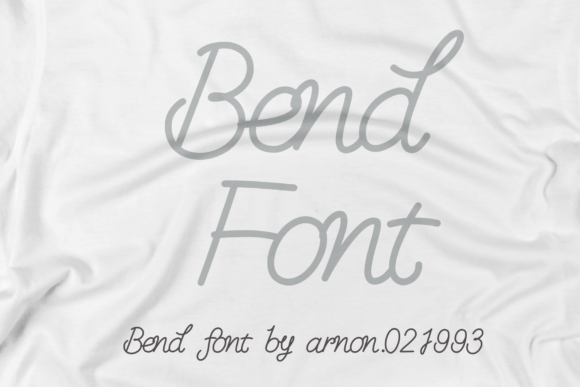
The Designer’s Delight: Falling in Love with Bend Font
I’ll never forget the moment I stumbled upon the perfect font for a client’s wedding invitation project. I had been searching for what felt like an eternity, trying out font after font, but nothing seemed quite right. That was until I discovered Bend Font – a stunning handwritten script that instantly captured the elegance and sophistication I was looking for. In this article, I’ll share my love affair with Bend Font, its features, and how to make the most of it in your designs.
An Honest Review of Bend Font
Bend Font has quickly become a favorite in my design arsenal, and for good reason. Here are some of the things I love about it:
• ✨ Exquisite handwritten script with classy calligraphic influences
• ✅ Contemporary and fresh feel that’s perfect for modern designs
• 💫 Highly legible, even at smaller font sizes
• 🎨 Versatile and suitable for a wide range of projects, from weddings to branding
While Bend Font is a beautiful font, it’s not without its quirks. Here are a few things to keep in mind:
• 🤔 Some users may find the font a bit too ornate for very casual or playful projects
• ⚠️ As with any script font, it may not be the best choice for very long blocks of text
3. Experiment with OpenType features, such as ligatures and stylistic alternates, to add some extra flair to your design
The Story Behind Bend Font
Bend Font was designed with the intention of creating a beautiful, elegant script font that would evoke the feeling of handwritten calligraphy. The designer, inspired by the flowing lines and curves of traditional calligraphy, set out to create a font that would be both classic and modern.
What makes Bend Font unique? Bend Font’s unique blend of classic calligraphic influences and modern freshness makes it stand out from other script fonts.
Is Bend Font suitable for body text? While Bend Font is beautiful, it’s a script font and may not be the best choice for long blocks of body text. It’s better suited for headings and titles.